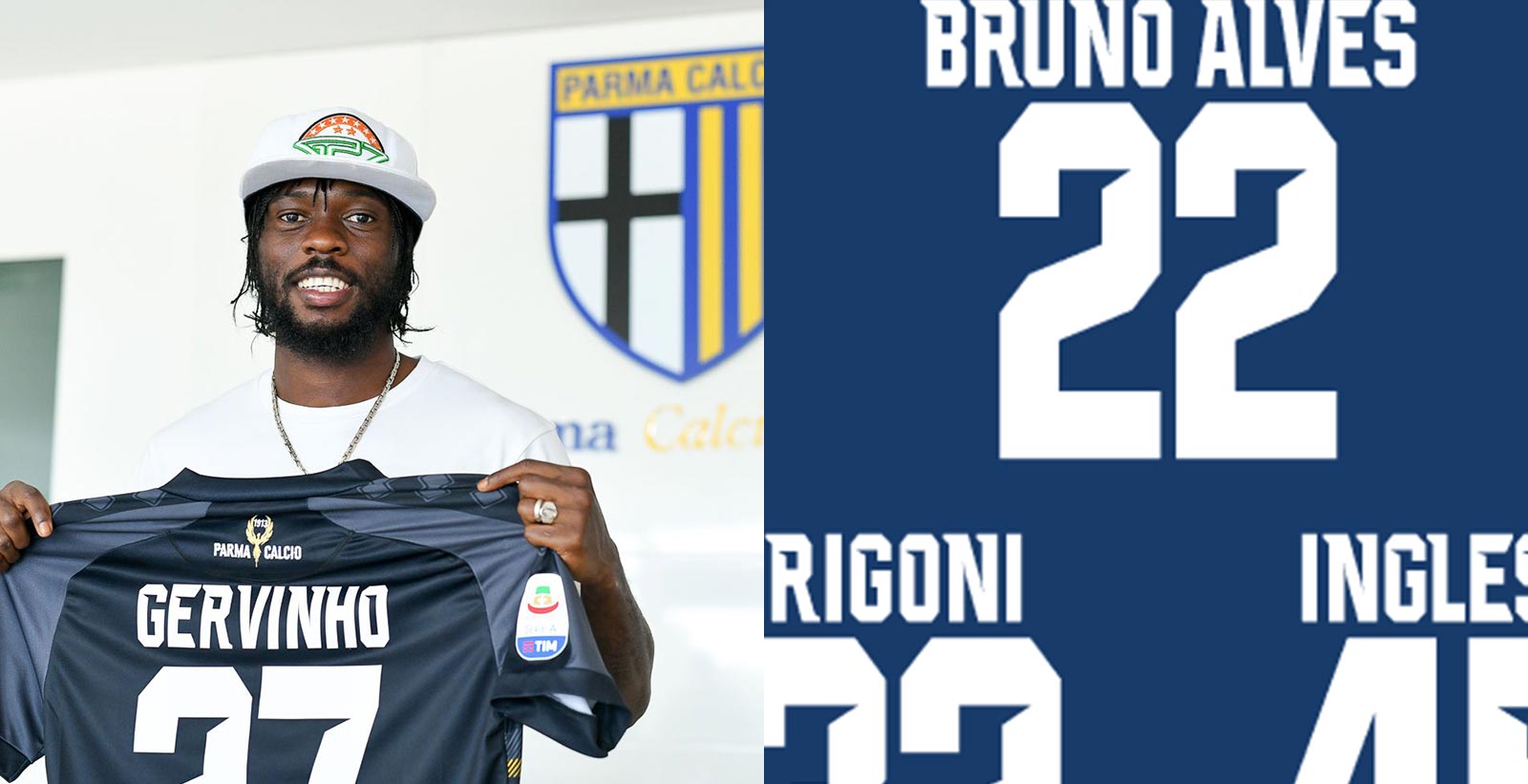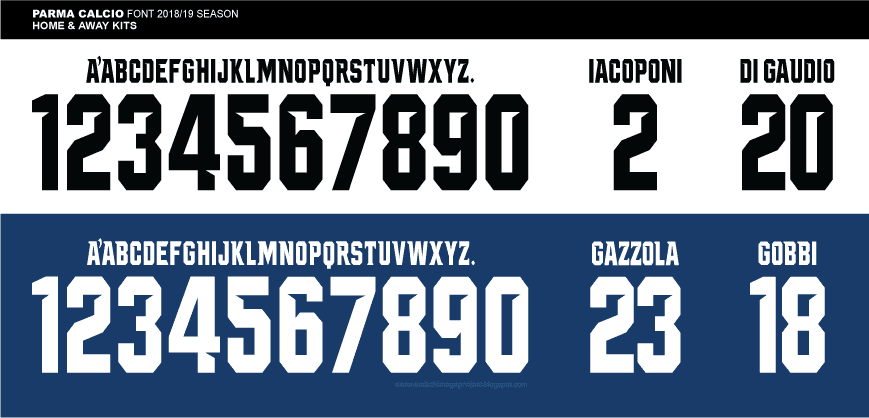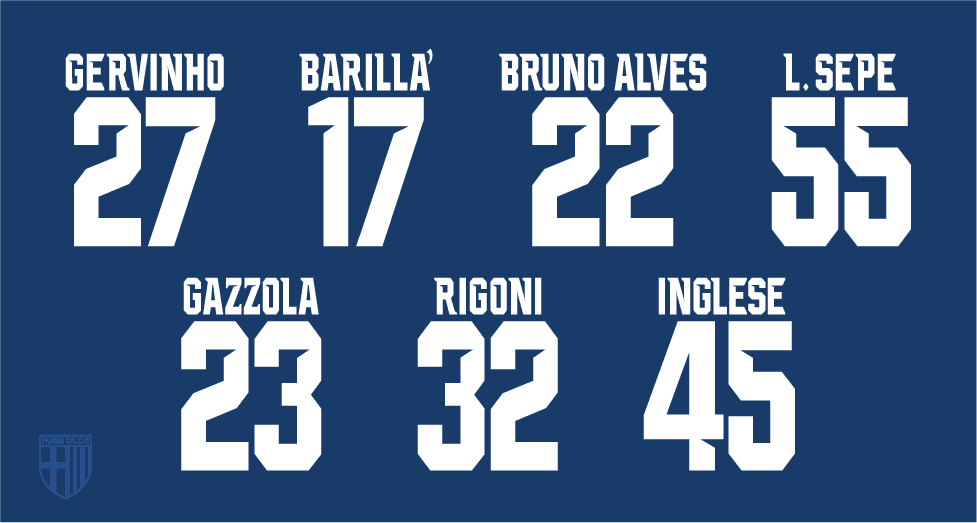
Closer Look | Parma 18-19 Kit Font Revealed
Errea has designed a special font for the new Parma 2018-2019 jerseys. We take a closer look at the bespoke typeface. Thanks to switchimageproject for some of the pictures.
Parma 2018-2019 Jerseys Names & Numbers
The Parma 2018-19 jersey features a remarkable look to stand out. The Parma 18-19 font is black for the home and white for the away and third kits.
Parma's 2018-19 kit numbers comes without the club crest or other club specific details.
Parma uses the font in in the 2018-19 Serie A season and the 2018-19 Coppa Italia.